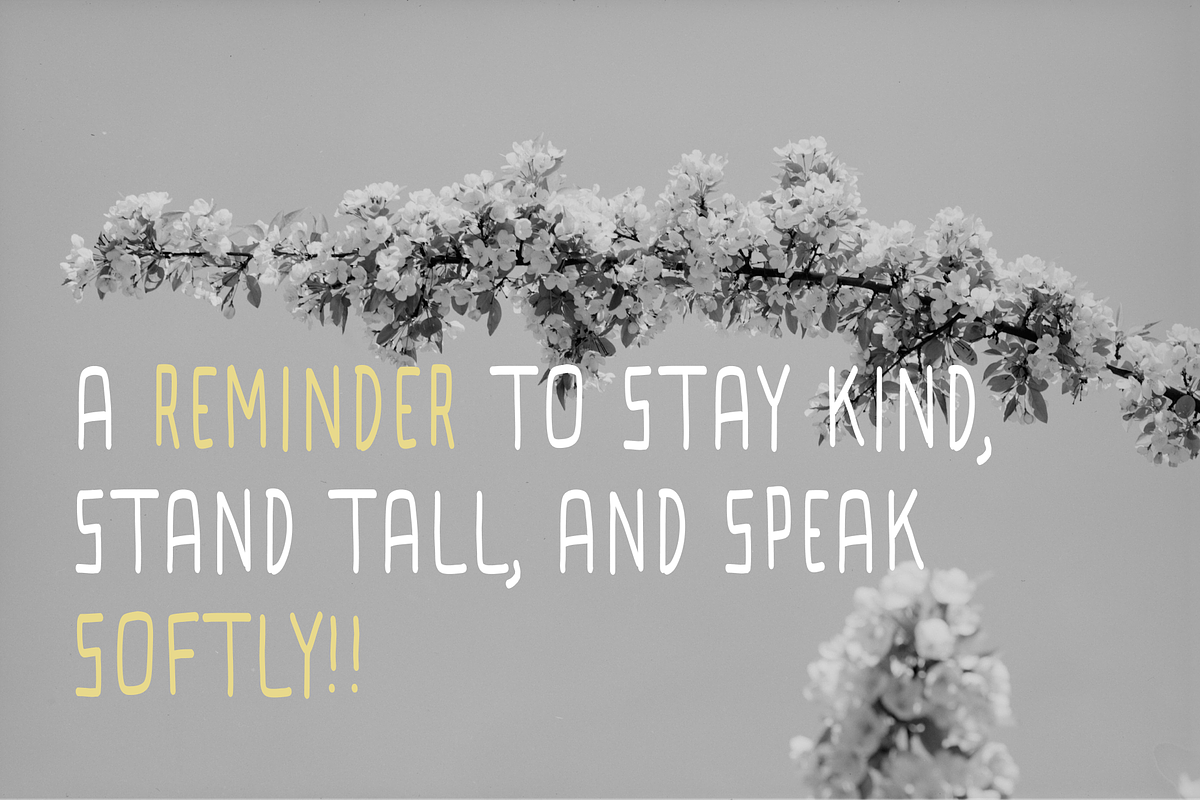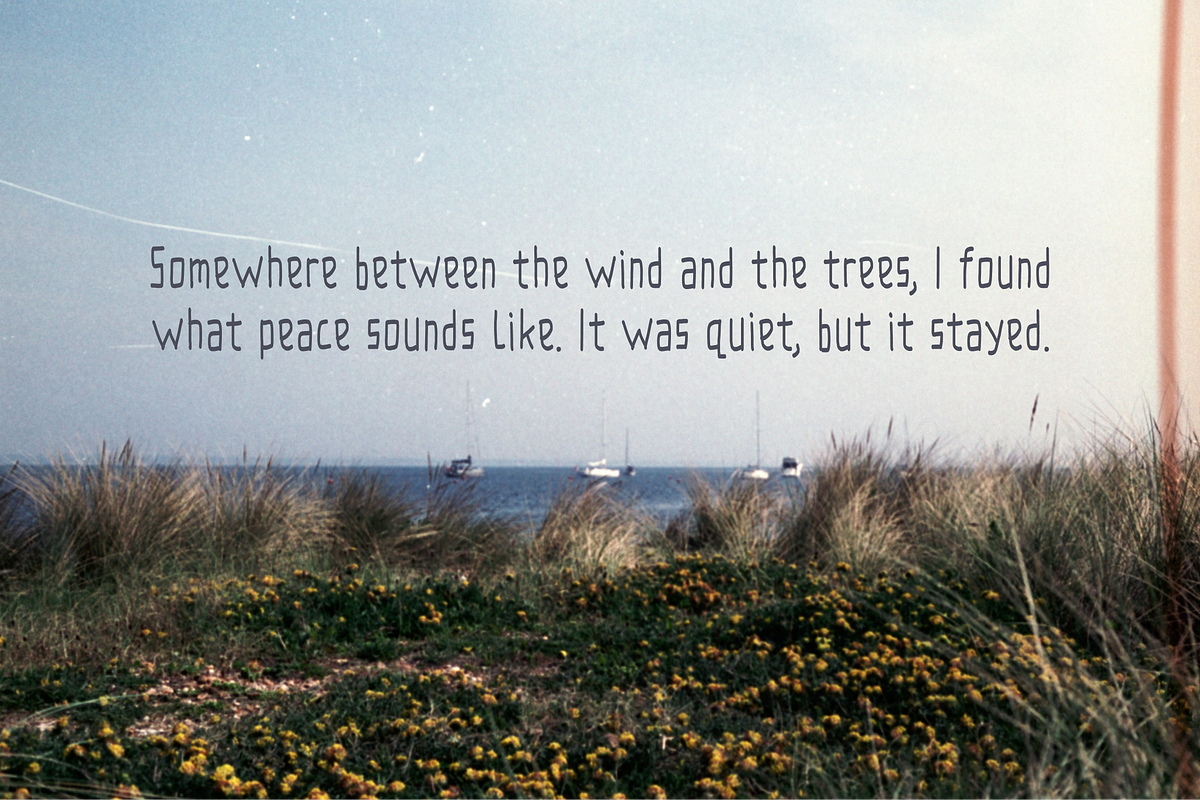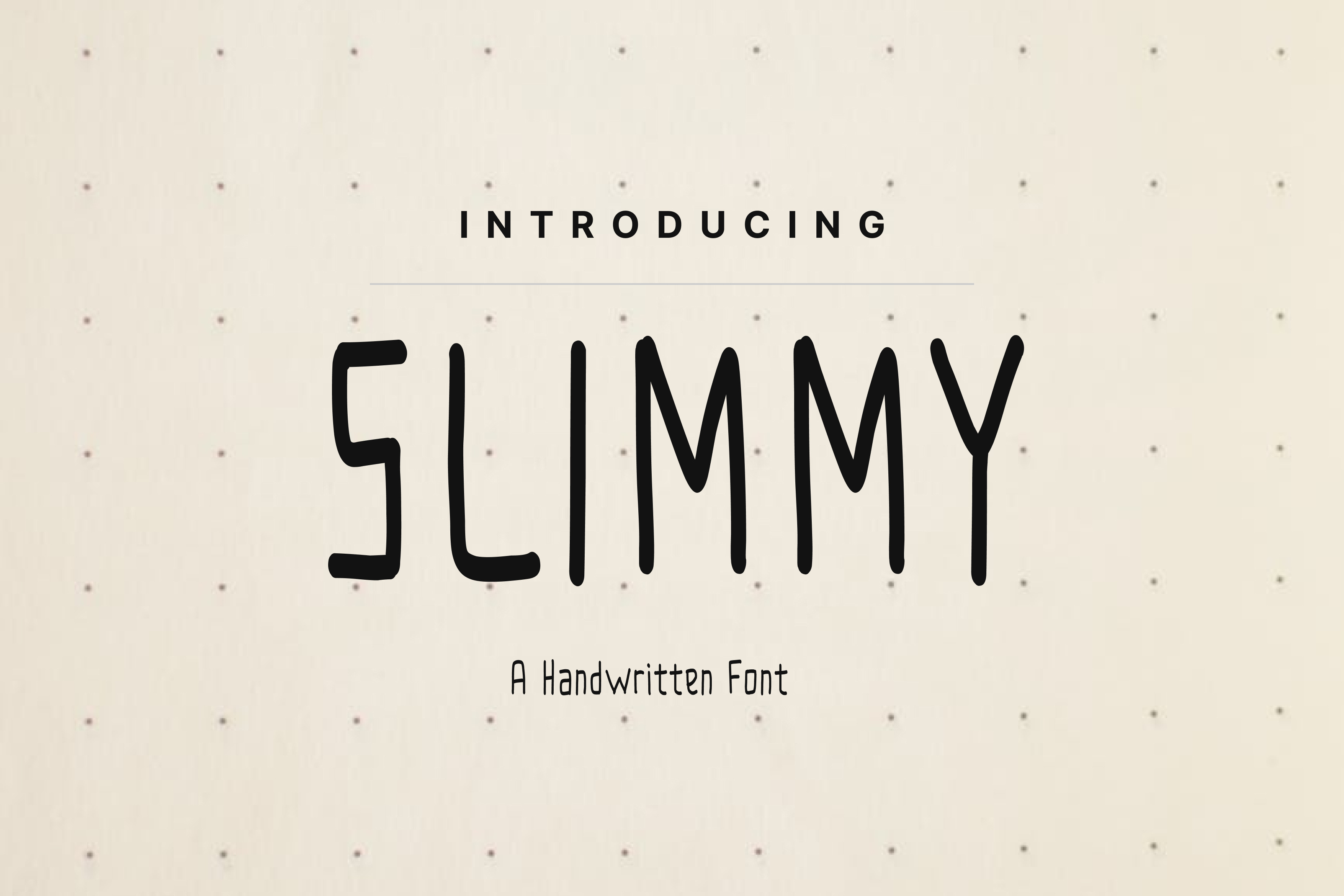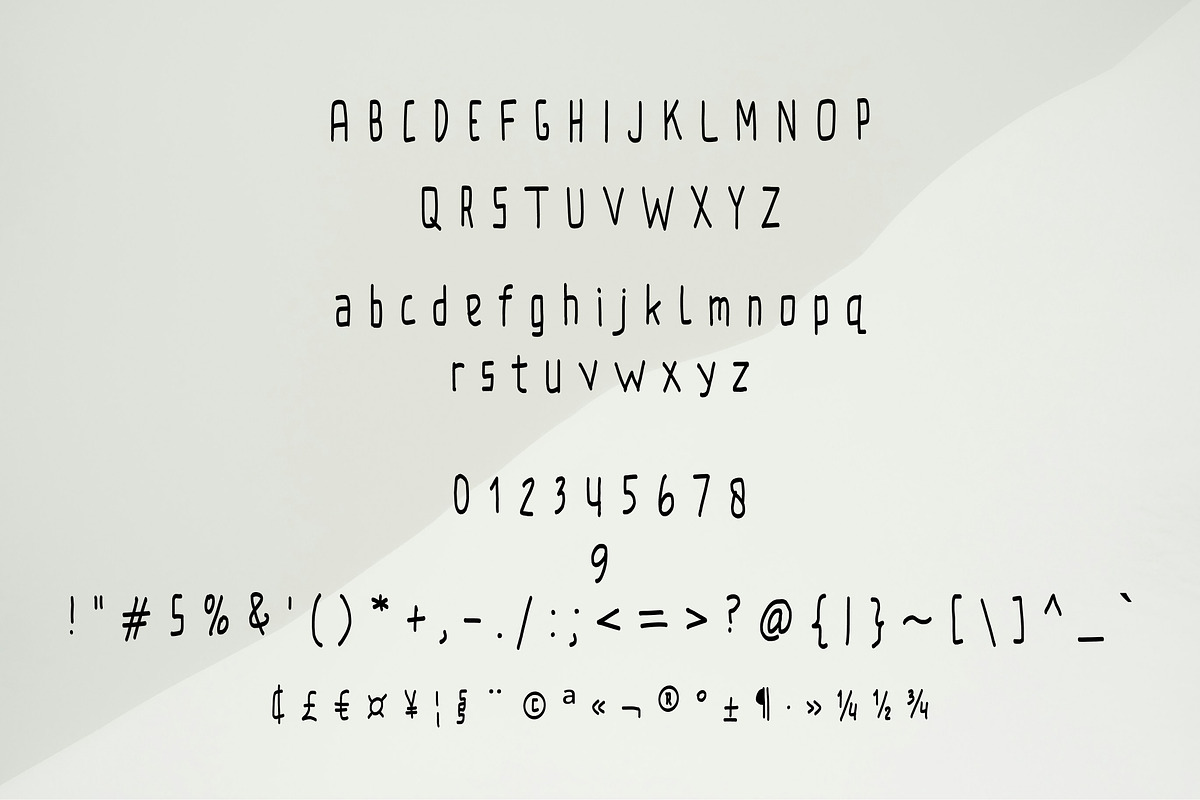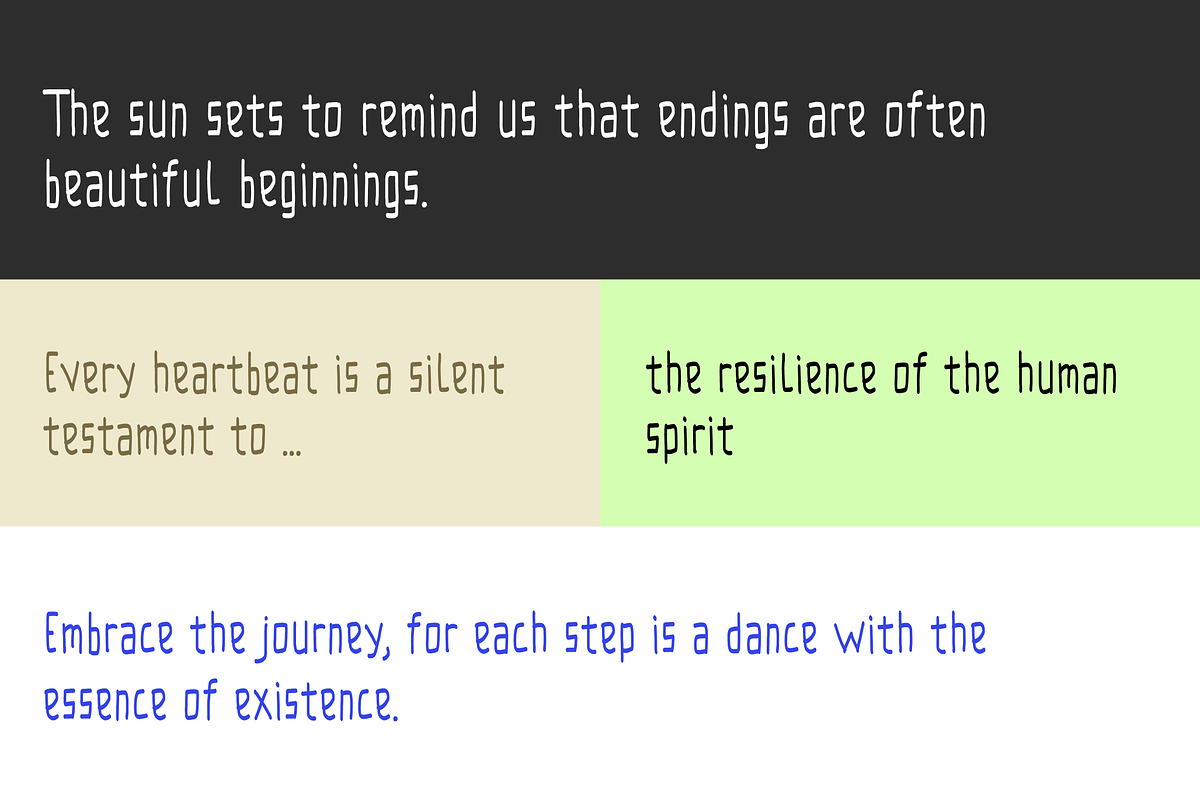
Slimmy Handwritten Font
Slimmy – A Handwritten Font
Slimmy is a slim, handwritten font with a natural and minimalist feel.
It’s clean, calm, and easy to read — perfect for designs that need a touch of warmth and simplicity.
Each letter was crafted with care to look balanced and authentic, making Slimmy ideal for journals, quotes, branding, stationery, and everyday design projects that value honesty and clarity.
With its light strokes and soft rhythm, Slimmy brings a sense of calm to any layout — from cozy prints to modern minimalist brands.
* Uppercase & Lowercase
* Numbers & Punctuation
* Extended Characters